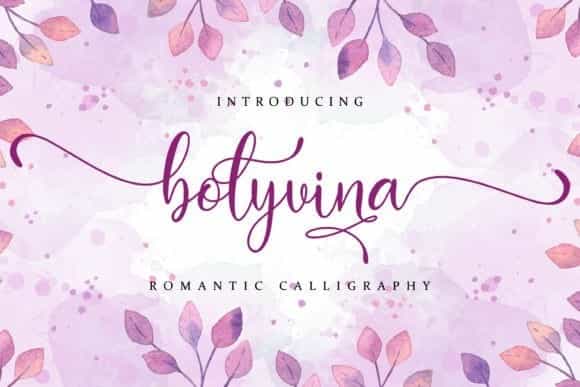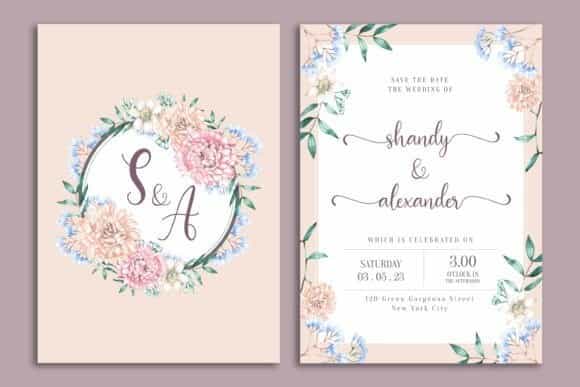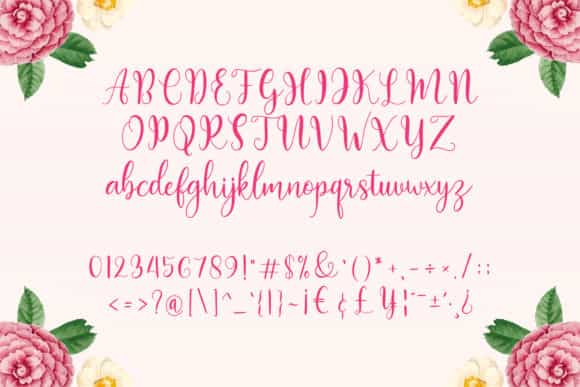
“Bolyvina” is a wonderful, classy and adorable script font in looks and design. This font comes with lots of letters and ligatures, so you can make the most amazing calligraphy design in a simple and easy way. It’s perfect for branding, packaging design, wedding, logos, etc.